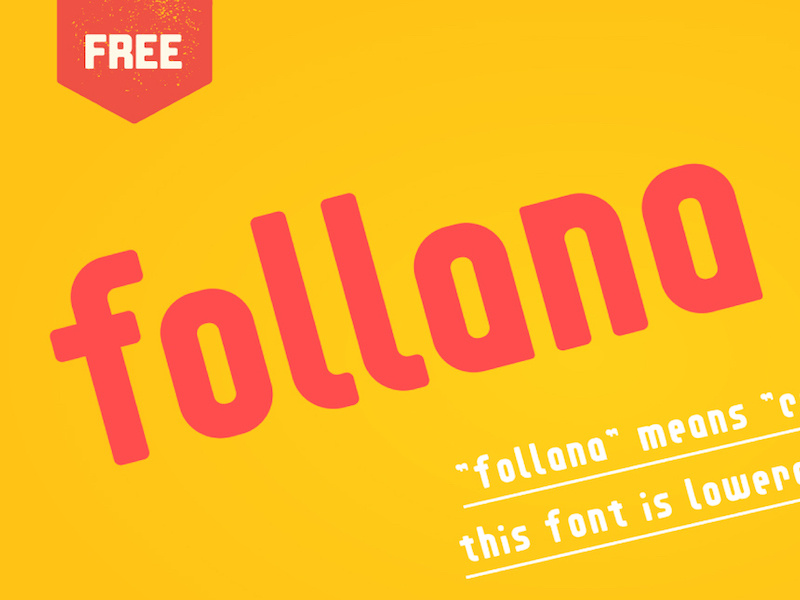
Follana - Free Modern Font
Introducing Follana, a unique free font from Seiya Moroi. "Follana" means "Cave" in Japanese. This font is extremely simplified in it's form, based off a set of uniform shapes to create a full set of upper & lowercase characters. Follana is great for modern, minimal & experimental designs.